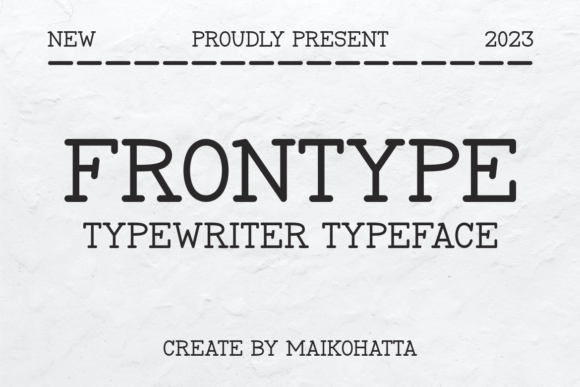
Introducing Frontype Font, the ultimate choice for design resumes! This captivating serif font combines the timeless elegance of traditional serifs with the nostalgic charm of a typewriter, resulting in a truly mesmerizing typeface that adds a classic touch to any design.
Created by the talented maikofarazhatta, Frontype Font effortlessly blends the sophistication of serifs with the raw authenticity of typewriters. Its unique aesthetic transports your designs back in time, evoking a sense of nostalgia and vintage allure. With every letter, Frontype exudes an irresistible charisma that captivates the viewer's attention.
Are you tired of ordinary, mundane fonts that fail to make an impact? Frontype Font is here to revolutionize your designs and make them stand out from the crowd. Whether you're crafting an eye-catching resume, designing a stunning logo, or creating an unforgettable brand identity, this font will elevate your work to new heights.
Frontype Font is the secret ingredient to making your resume truly unforgettable. With its exquisite detailing and elegant strokes, this font conveys a sense of professionalism and sophistication that will impress even the most discerning recruiters. Stand out from the competition and leave a lasting impression with a resume that exudes confidence and style.
But Frontype Font is not just for resumes. Its versatility knows no bounds. Imagine using this font in your advertising campaigns, posters, or social media graphics. Each word will carry an irresistible charm, drawing your audience in and leaving them longing for more. Let Frontype Font be the voice of your brand, conveying your message with a touch of retro elegance.
Our Font experts have meticulously crafted Frontype to ensure its seamless integration into any design project. With its carefully balanced proportions, legibility, and attention to detail, this font guarantees a flawless reading experience. It's time to let your creativity soar without compromising on readability.